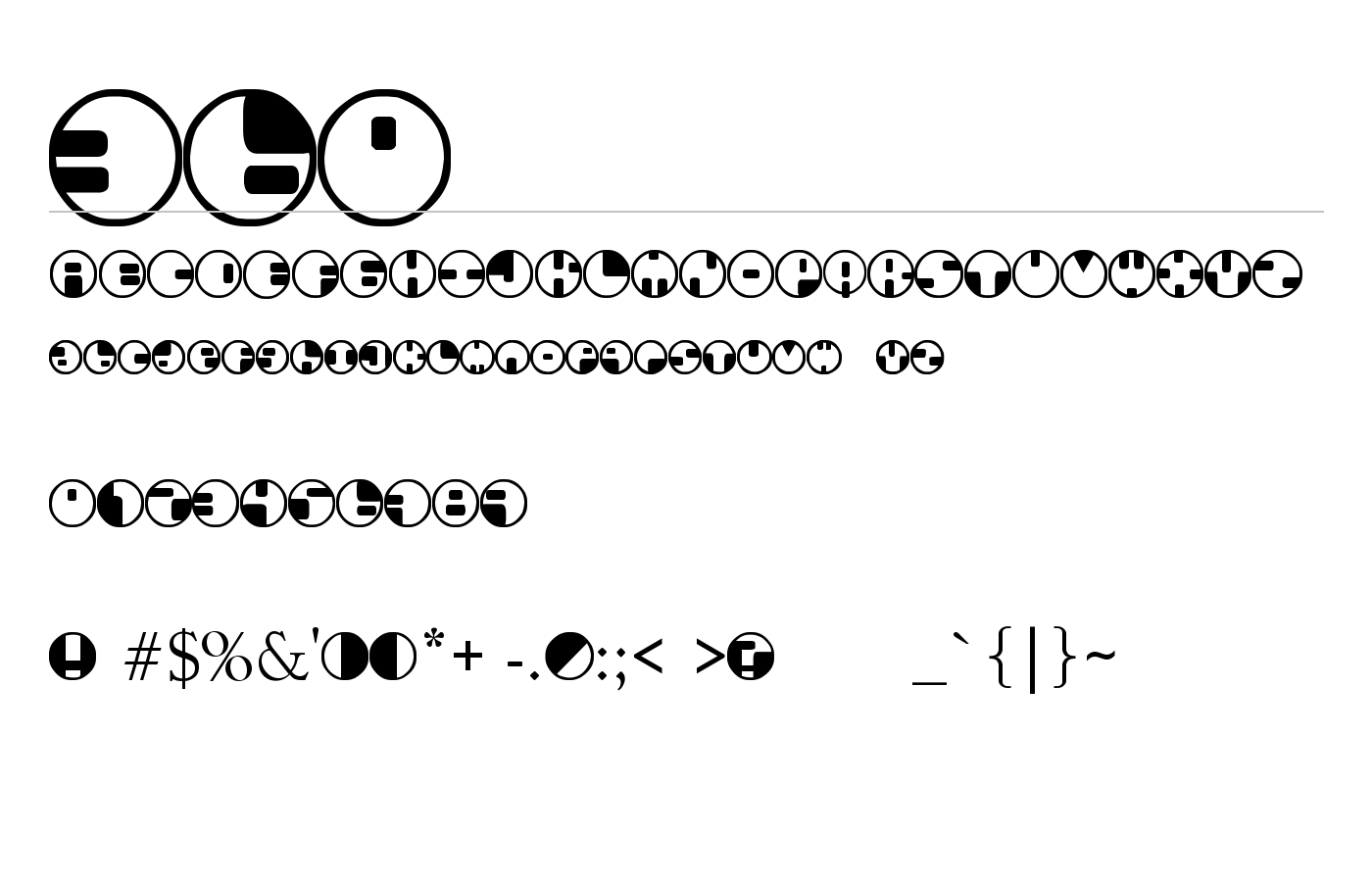
360 Font is a unique, futuristic sans serif typeface characterized by geometric shapes enclosed within circles, creating a bold and modern visual impact. Its highly stylized letterforms with solid and negative space contrast offer a playful, tech-inspired personality, best suited for creative logos, digital projects, and modern branding that aim to stand out with an innovative look. This font excels in display use where its distinctive style can grab attention and convey originality.
360 Font